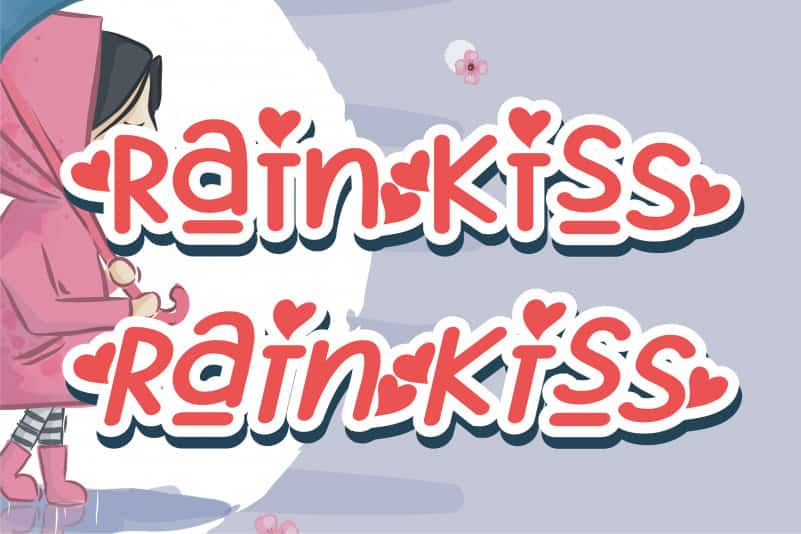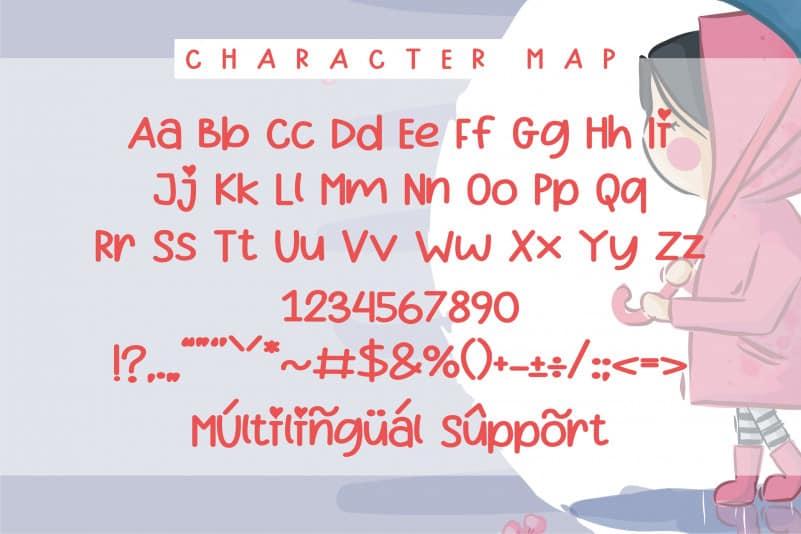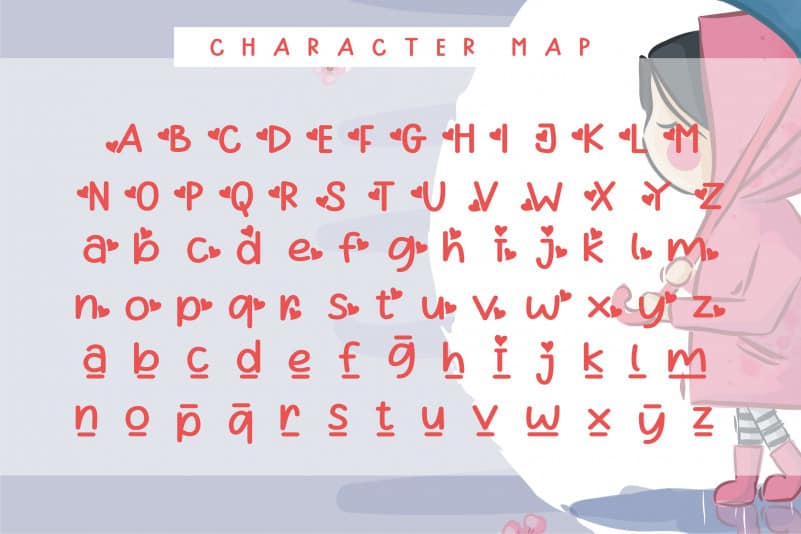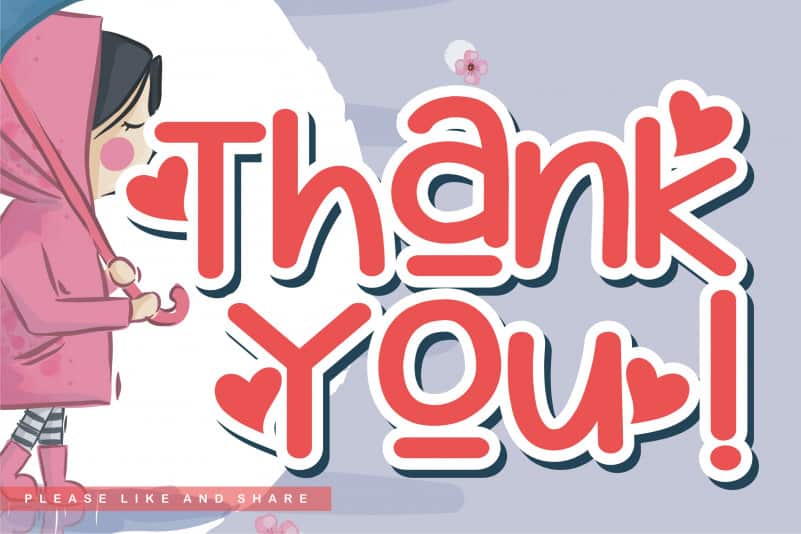
Rain Kiss Display Font is a fun and chunky lettered display font. Casual and simple, this font will fit a variety of crafting ideas. Rain Kiss is also ideal for children themed designs, especially when combined with bright colors.